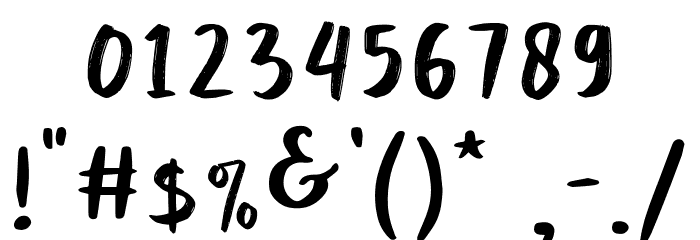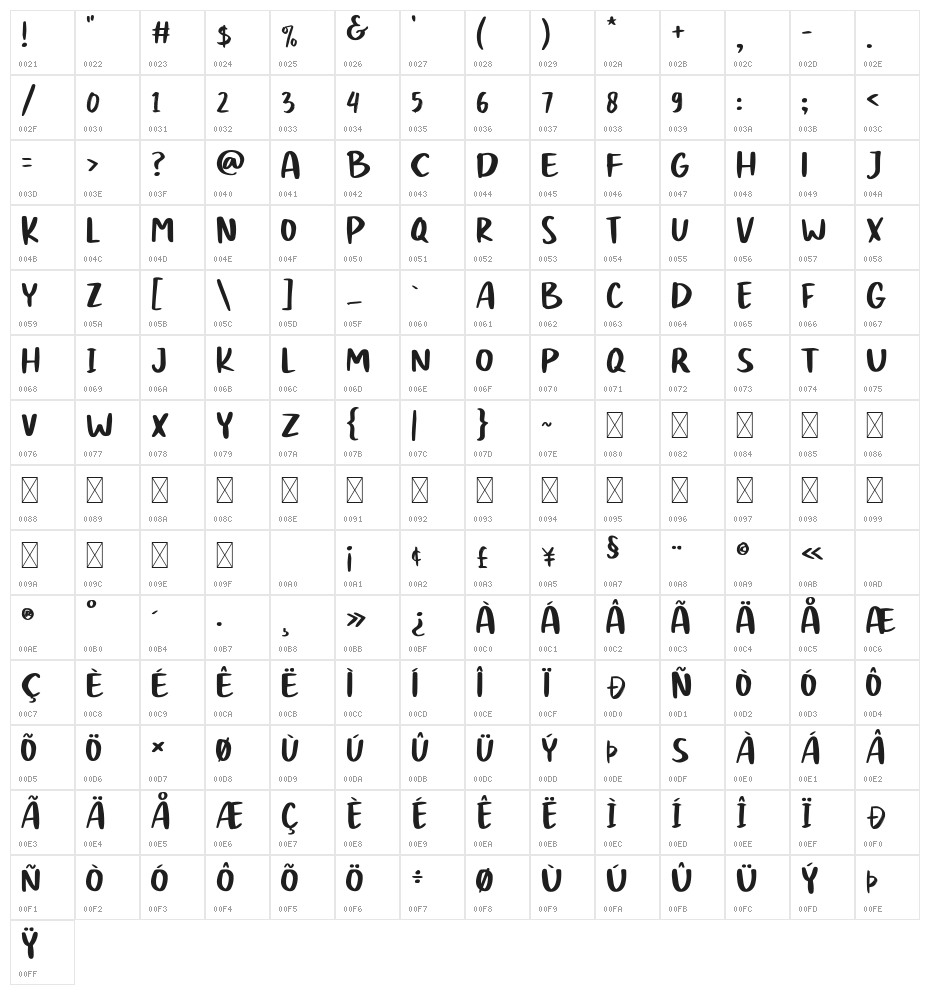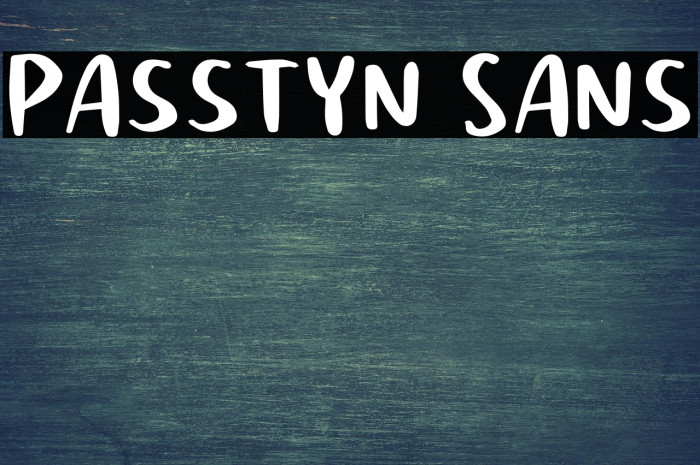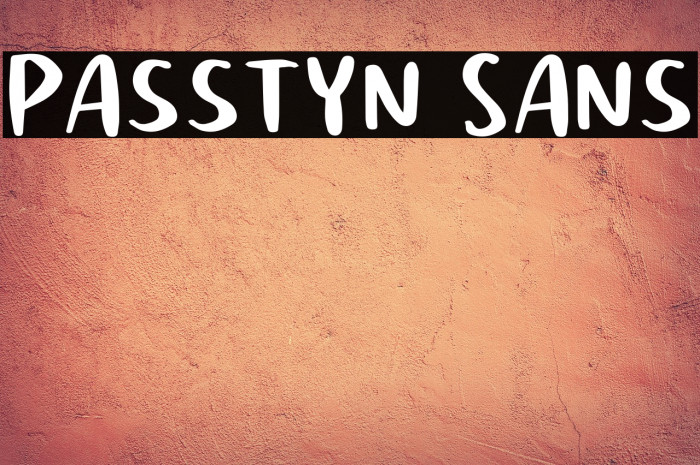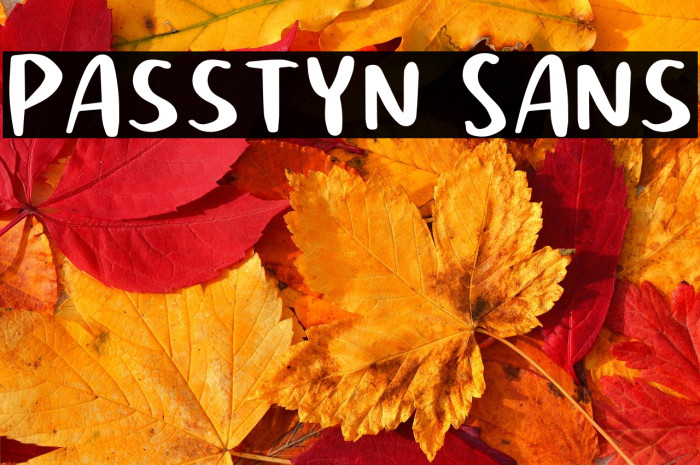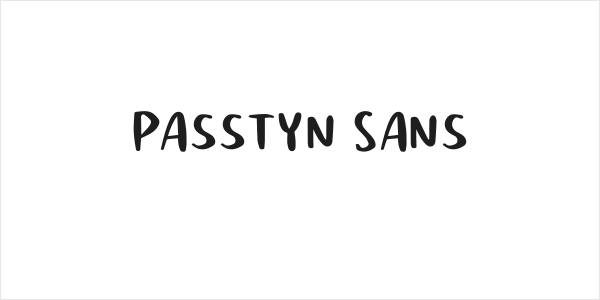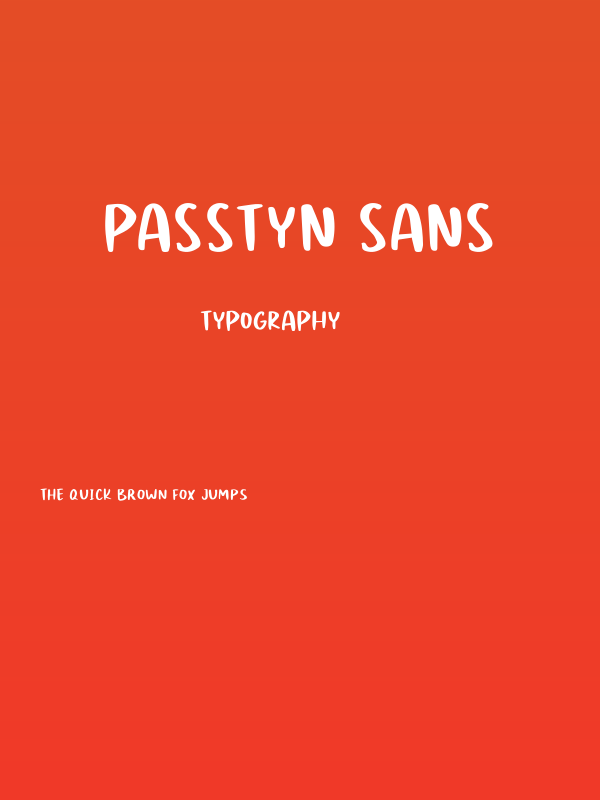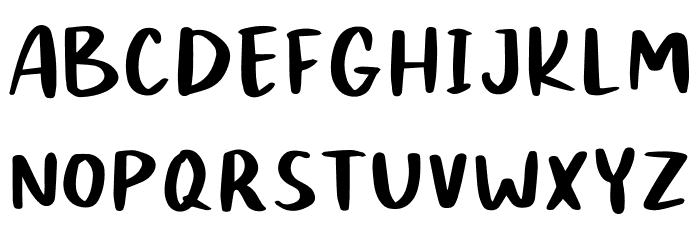
Passtyn Sans Font
Passtyn Sans Description
This font features a playful and casual handwritten style, characterized by its bold and rounded letterforms. The strokes are consistent in width, giving it a uniform appearance, while the slightly irregular shapes add a touch of personality and warmth. The uppercase and lowercase letters are well-balanced, with a friendly and approachable look. The numerals and special characters maintain the same playful aesthetic, making it versatile for various design needs. Its informal style makes it suitable for projects that aim to convey a sense of fun and creativity.
| Use Case | Logos, Headlines, Informal Invitations |
| Proposed Projects | Ideal for greeting cards, children's books, playful branding, and social media graphics. |